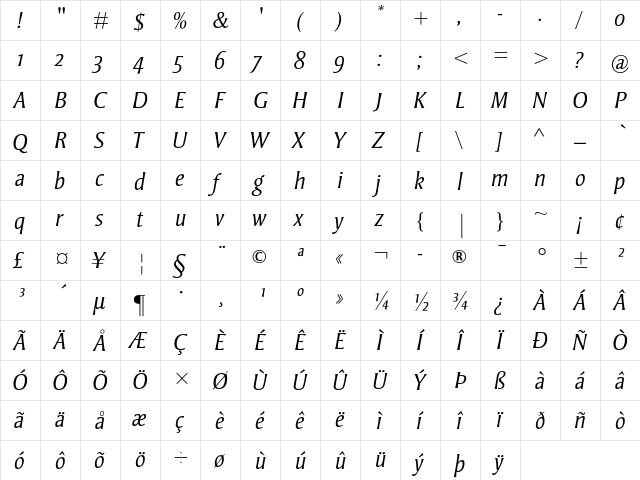
Strayhorn MT Light Italic SC
Design Context for Strayhorn MT Typeface
Strayhorn MT is a composed and adaptable typeface that performs quietly and consistently across a wide range of design contexts. Its italic angle brings a sense of urgency and motion to the letterforms. Its slender proportions lend an understated elegance to any composition.
Pro Tip: Try Strayhorn MT for annotation and caption copy alongside an upright companion — the contrast in angle creates a dynamic but ordered typographic system.